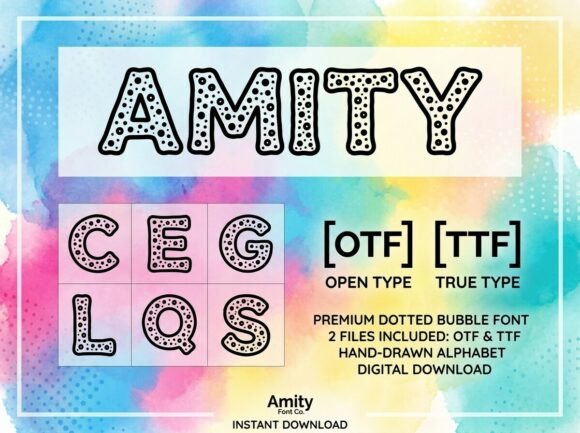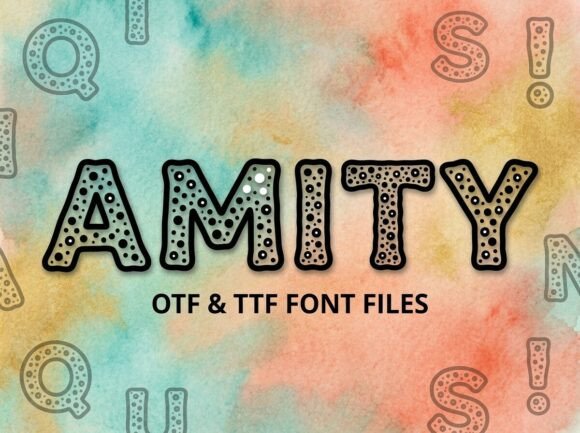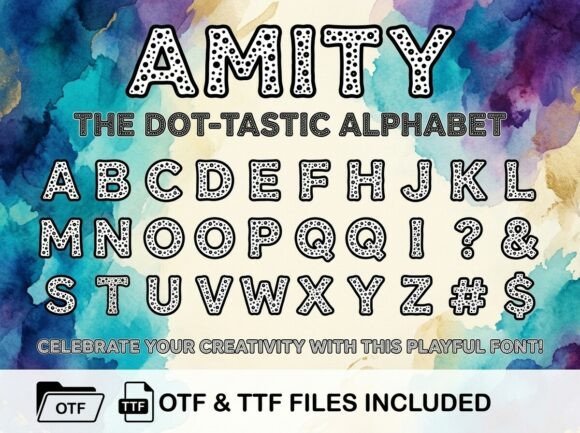
Introducing Amity Font: The Cheerful Display Typeface for Creative Workspaces
Are you tired of using the same old fonts for your creative projects? Look no further than Amity, a bright and cheerful display typeface that’s sure to bring a touch of whimsy to your designs. With its bold, rounded sans-serif letterforms and intricate internal texture of rhythmic, hand-drawn “polka dots” of varying sizes, Amity is the perfect choice for designers and crafters looking to add a playful touch to their work.
The Unique Characteristics of Amity Font
Amity’s unique design features a heavy structural weight that gives it a friendly and approachable personality. The font’s bold, rounded letterforms are reminiscent of classic children’s fonts, but with a modern twist. The intricate internal texture of rhythmic, hand-drawn “polka dots” adds a touch of playfulness and whimsy, making Amity perfect for designs that require a bit of personality.
Bridging the Gap between Playful Stationary Design and Modern Artisanal Branding
Amity’s design is specifically tailored to bridge the gap between playful stationary design and modern artisanal branding. The font’s bold and cheerful personality makes it perfect for use in children’s party invitations, boutique craft shop identities, and personalized classroom materials. At the same time, its modern and sleek design ensures that it will also work well for high-impact social media headers and other digital applications.
Perfect for Independent Children’s Party Invitations
Amity’s playful and whimsical design makes it the perfect choice for independent children’s party invitations. The font’s bold and cheerful personality is sure to delight kids and parents alike, and its unique texture adds a touch of handmade charm that’s perfect for DIY party invitations.
Boutique Craft Shop Identities
Amity’s design is also well-suited for boutique craft shop identities. The font’s modern and sleek design ensures that it will work well for shop logos and branding, while its playful personality adds a touch of whimsy that’s perfect for craft shops and artisan brands.
Personalized Classroom Materials
Amity’s friendly and approachable personality makes it a great choice for personalized classroom materials. The font’s bold and cheerful design is sure to delight students and teachers alike, and its unique texture adds a touch of handmade charm that’s perfect for DIY educational materials.
High-Impact Social Media Headers
Amity’s modern and sleek design ensures that it will work well for high-impact social media headers. The font’s bold and cheerful personality is sure to grab attention and add a touch of personality to your social media posts.
Why Choose Amity Font?
So why choose Amity font for your creative projects? Here are just a few reasons:
- Unique and playful design: Amity’s bold and cheerful personality is sure to add a touch of whimsy to your designs.
- Versatile: Amity is perfect for a wide range of applications, from children’s party invitations to high-impact social media headers.
- Handmade charm: Amity’s intricate internal texture of rhythmic, hand-drawn “polka dots” adds a touch of handmade charm that’s perfect for DIY designs.
- Modern and sleek: Amity’s design is modern and sleek, ensuring that it will work well for a wide range of digital applications.
In conclusion, Amity font is a bright and cheerful display typeface that’s perfect for designers and crafters looking to add a playful touch to their work. With its unique and playful design, versatile applications, handmade charm, and modern and sleek design, Amity is the premier choice for independent children’s party invitations, boutique craft shop identities, personalized classroom materials, and high-impact social media headers. So why not give Amity a try and see how it can brighten up your creative workspace?